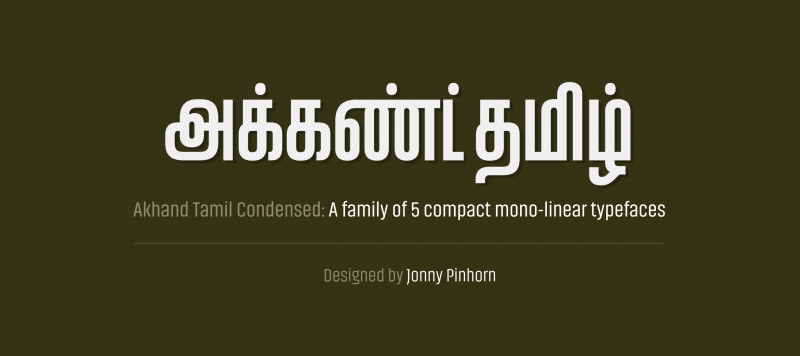
A condensed version of Akhand Tamil in 5 styles, designed for dispay usae. Part of Akhand Multiscript.
Family Name | Akhand Tamil Condensed |
Designer(s) | Jonny Pinhorn |
Release Date | August 12, 2013 |
Available Style | Light, Regular, Medium, Semibold, Bold |
Classification | Sans, Display |
Supported Languages | Tamil |